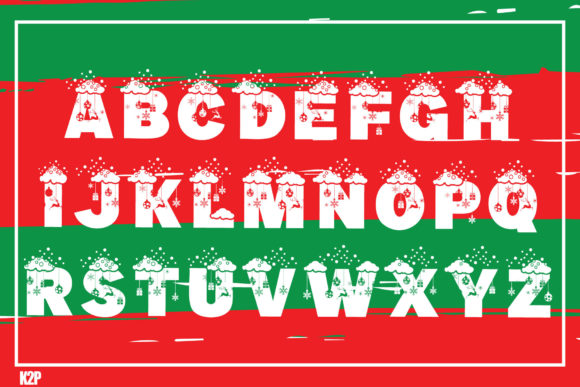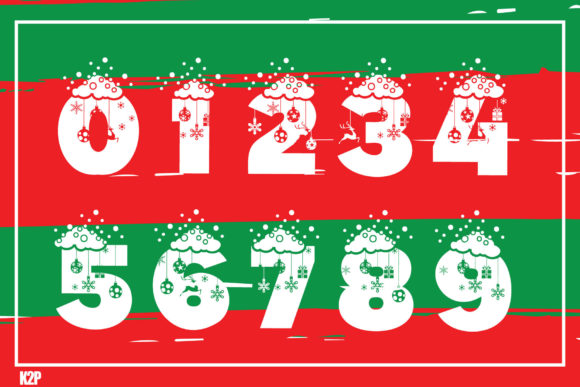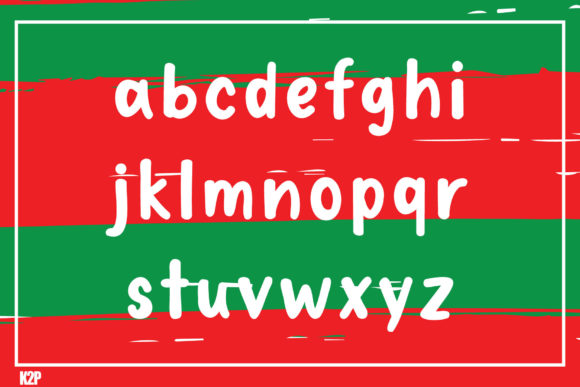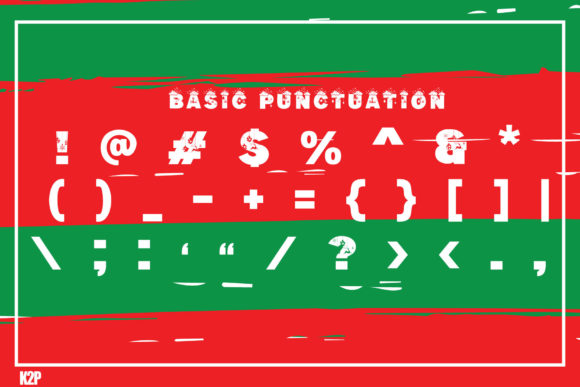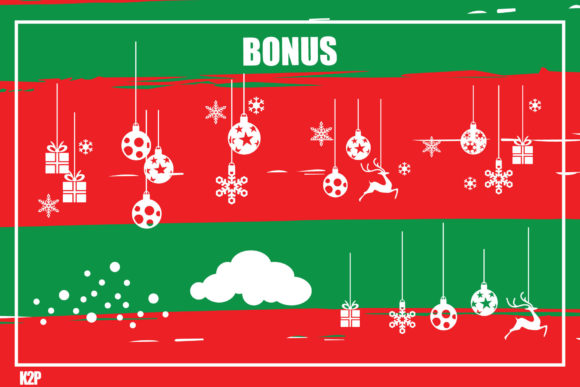
Introducing Christmas Day Font: A Thick Lettered and Unique Decorative Font for Holiday Designs
Are you looking for a font that can add a touch of festive cheer to your designs, particularly those related to Christmas? Look no further than the Christmas Day Font. This thick lettered and incredibly unique decorative font is perfect for designers and crafters who want to create stunning holiday-themed projects.
What Makes Christmas Day Font So Special?
Christmas Day Font is a one-of-a-kind decorative font that is specifically designed to capture the spirit of the holiday season. Its thick, bold letters are perfect for creating eye-catching headings, titles, and graphics that are sure to grab attention. The font’s unique design makes it stand out from other fonts, ensuring that your designs will be memorable and festive.
Uses for Christmas Day Font
Christmas Day Font is incredibly versatile and can be used for a wide range of design projects, including:
- Holiday greeting cards and invitations
- Christmas-themed party decorations and banners
- Festive social media graphics and posts
- Decorative gift tags and wrapping paper
- Holiday-themed website headers and banners
Why Designers and Crafters Love Christmas Day Font
Designers and crafters love Christmas Day Font for several reasons:
- Easy to Read: Despite its bold and decorative design, Christmas Day Font is easy to read, making it perfect for use in a variety of projects.
- Highly Versatile: The font’s versatility makes it suitable for use in a wide range of design projects, from digital graphics to print materials.
- Unique Design: Christmas Day Font’s unique design ensures that your projects will stand out from the crowd and capture the attention of your audience.
- Festive Spirit: The font’s festive design perfectly captures the spirit of the holiday season, making it perfect for Christmas-themed projects.
Tips for Using Christmas Day Font
Here are some tips for using Christmas Day Font in your designs:
- Use it Sparingly: While Christmas Day Font is perfect for headings and titles, it’s best to use it sparingly to avoid overwhelming your design.
- Pair it with Other Fonts: Pair Christmas Day Font with other fonts to create a unique and visually appealing design.
Christmas Day Font is a unique and versatile decorative font that is perfect for designers and crafters who want to add a touch of festive cheer to their holiday designs. Its thick, bold letters and festive design make it suitable for use in a wide range of projects, from holiday greeting cards to festive social media graphics. With its ease of use, high versatility, and unique design, Christmas Day Font is sure to become a favorite in your design toolkit.